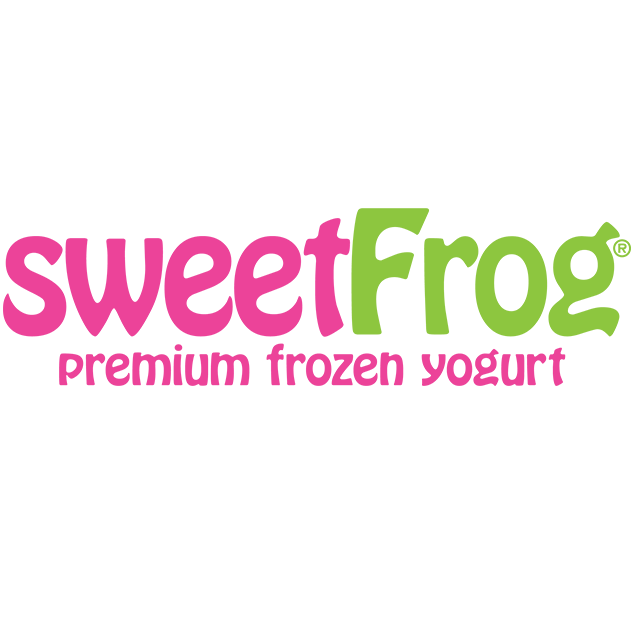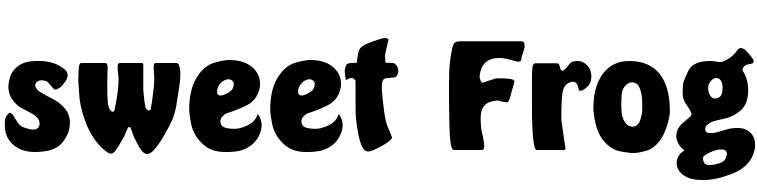
Sweet Frog Font
Fonts in UseSweet Frog is the largest chain of soft-serve frozen yogurt retail restaurants in the world and is owned by Sweet Frog Enterprises, LLC. Customers can create their own soft-serve frozen yogurt with many different flavors and toppings.
Hobo, a display sans serif designed by Morris Fuller Benton and released by American Type Founders in 1910, is the font used for the Sweet Frog logo. Hobo Bold Agency by CastCraft is one of many free digital variants of Hobo you can get for free from the Fonts Used Section.